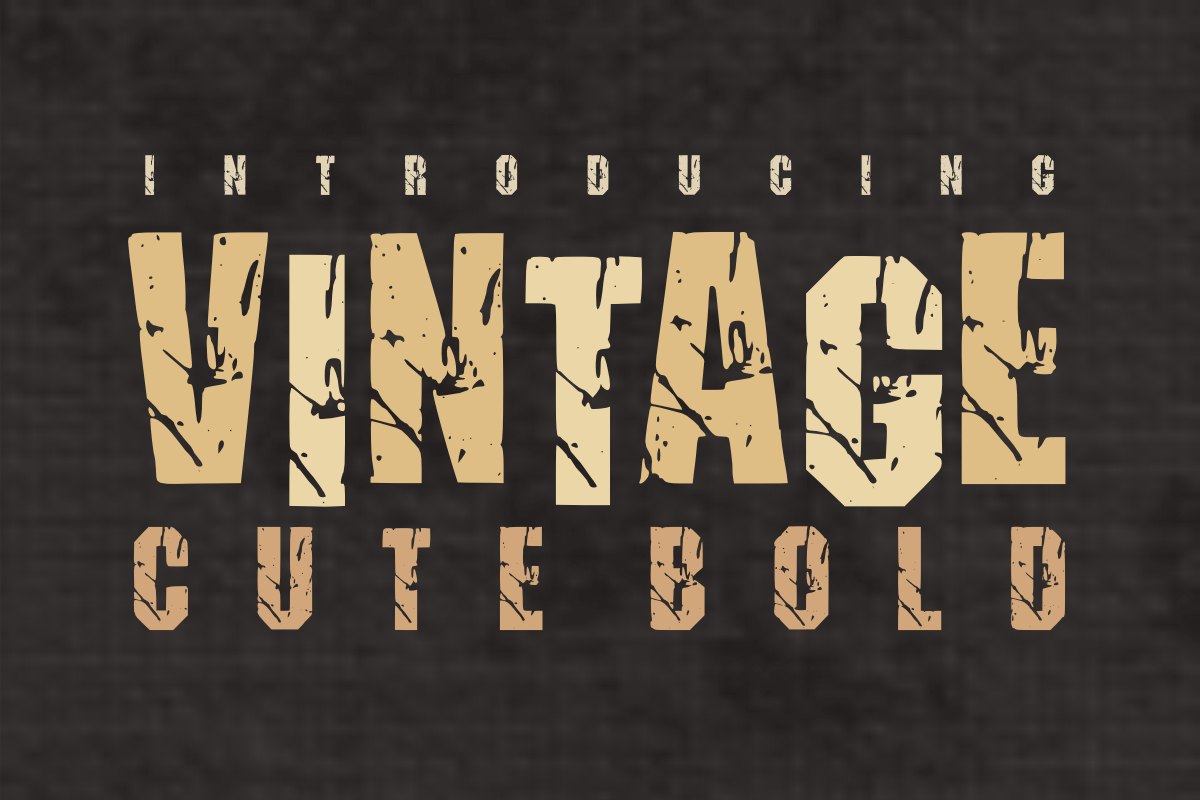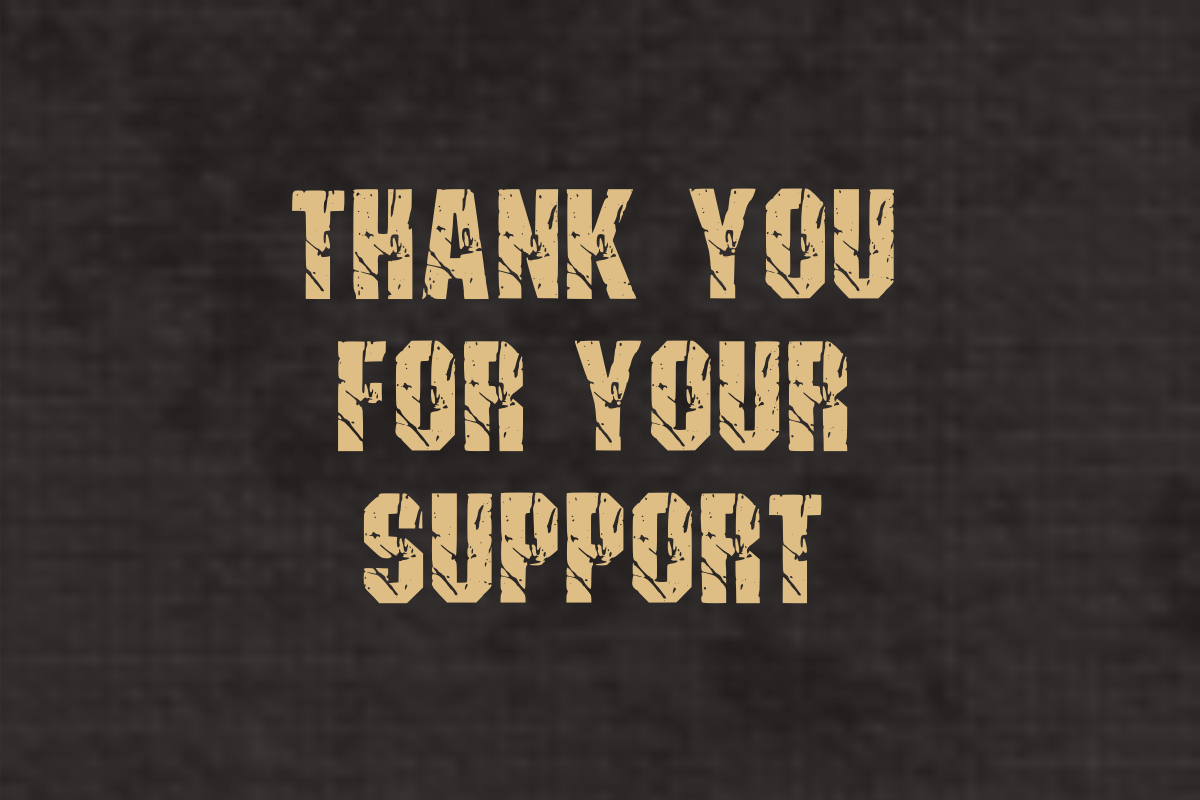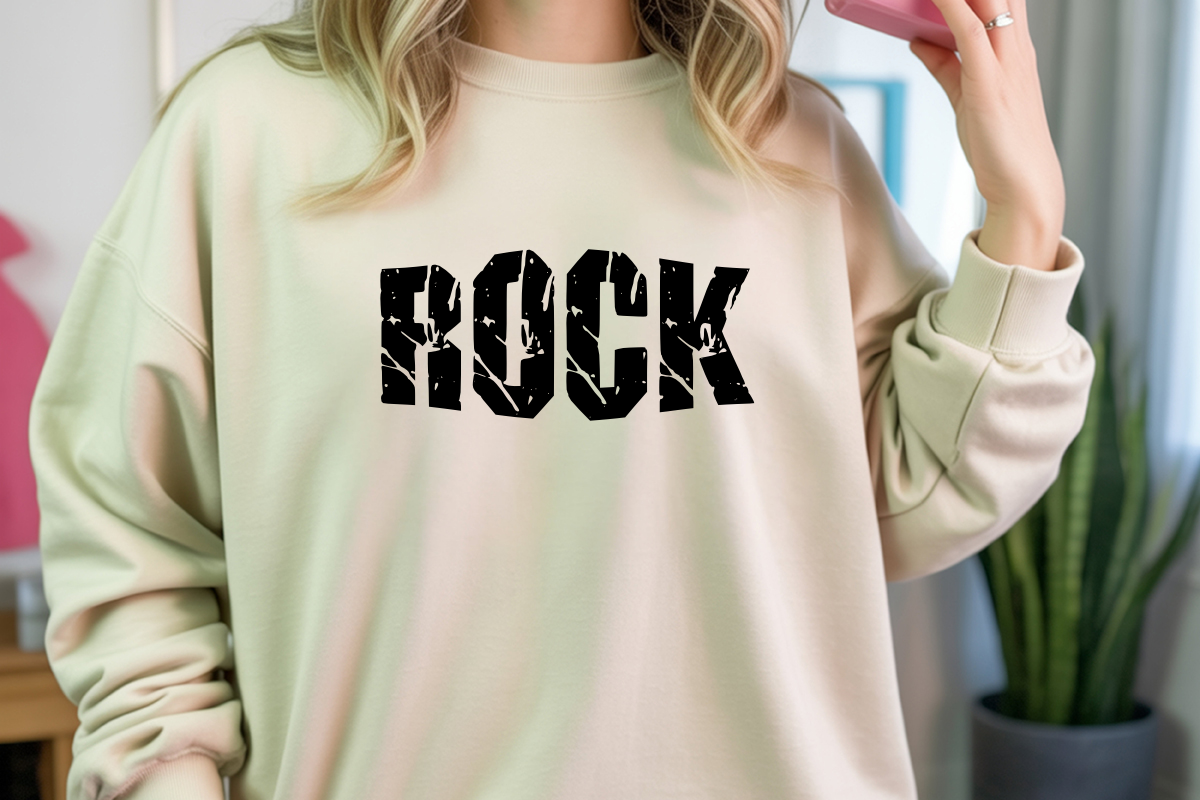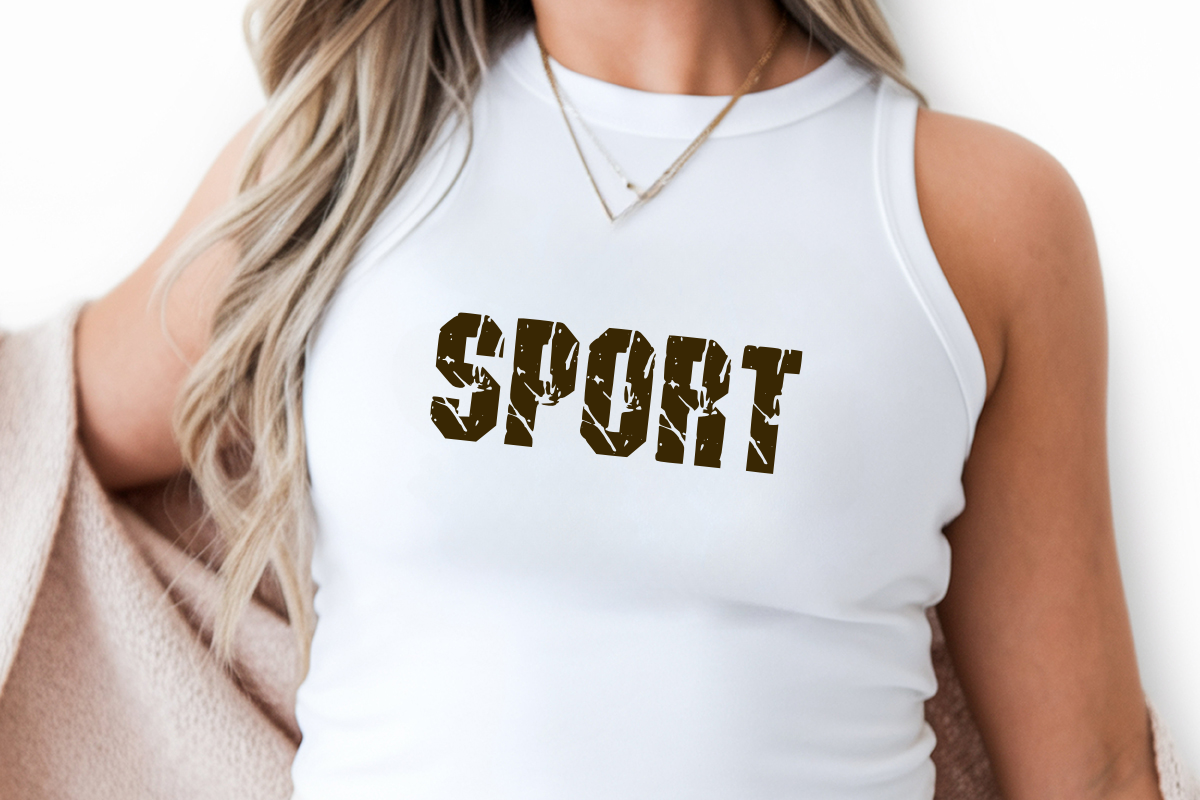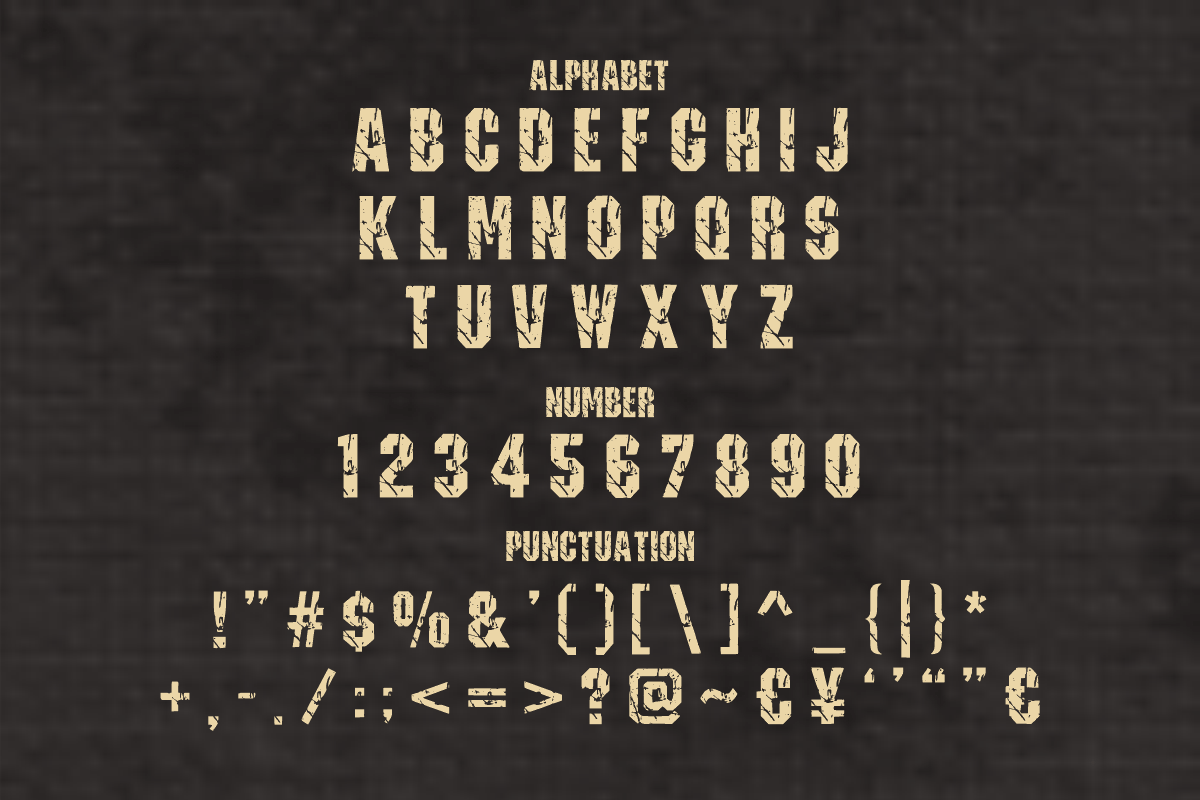
Cute Bold Vintage- Grunge Font Style
🌲 Hey Creative Folks! Meet Cute Bold Vintage - The Ultimate Distressed Display Font! 🎸
Looking to add an instant rustic charm and rugged character to your designs? Cute Bold Vintage is a premium condensed display font featuring a beautifully built-in distressed, grunge texture. It perfectly balances a bold, high-impact structure with an authentic, weathered look that saves you hours of adding texturing effects manually!
Don't let the name fool you—its "cute" factor lies in its charmingly irregular, handcrafted vintage aesthetic, making it an absolute powerhouse for rugged merchandise and retro branding.
_ 🔠 _\Bold Uppercase Letters (A-Z)\\* – Strong, condensed block style with a heavy grunge texture.
_ 🔢 _\Matching Numbers (0-9)\\* – Perfect for vintage-style numbering, years, and athletic stamps.
_ 🔣 _\Simple Symbols & Punctuation\\* – Essential characters to complete your typography layouts.
🎯 Perfect For Your Next Weathered Design:
\* 👕 Vintage T-Shirts, Streetwear Brands & Biker Apparel
\* 🪵 Outdoor, Adventure, Camping & Craft Brewery Branding
\* 🍔 Retro Diner, Food Truck Logos & Product Packaging
\* 🎨 Rustic SVG Craft Projects, Poster Headers, and Badges
\* 📸 Social Media Graphics, Book Covers, and Gritty Magazine Layouts